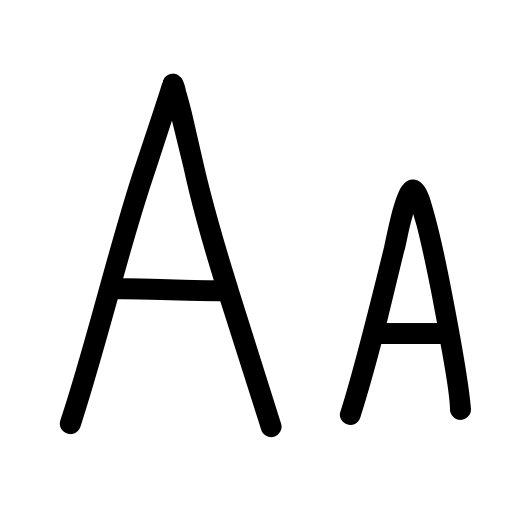
Becca is a playful, hand-drawn sans serif font with a light weight and tall, narrow letterforms that give it a casual, approachable feel. Its simple, slightly irregular strokes make it perfect for creative projects, informal branding, and friendly headlines where a personal touch is desired. This font works well for children’s books, invitations, and any design needing a warm, handwritten vibe.
Becca Font
About Becca Font